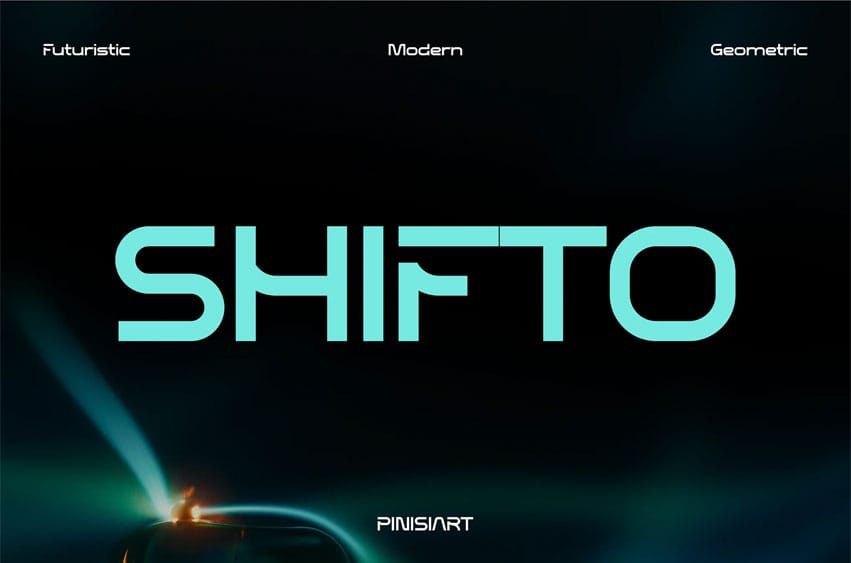
Shifto Font is a futuristic geometric display typeface built for modern branding and bold visual storytelling. With its sharp angular edges, smooth geometric proportions, and high-tech rhythm, SHIFTO projects a confident, forward-thinking vibe that makes it stand out in digital spaces. Its structure balances strong geometry with clean readability, making it ideal for projects that demand impactful headlines and contemporary aesthetics.
Perfect for branding, editorial layouts, posters, app UI, product packaging, and digital campaigns, SHIFTO adapts seamlessly across industries that thrive on innovation. Whether you’re designing a tech startup identity, a gaming interface, or a bold marketing poster, this typeface delivers an energetic, futuristic spirit that grabs attention and inspires progress.
Key Features :
- Futuristic & Modern: Sharp geometric forms with a sleek, forward-looking aesthetic.
- Versatile Design: Works beautifully for logos, posters, editorials, and UI design.
- High Readability: Clean proportions that balance style with clarity.
- Creative Impact: Instantly elevates branding with bold futuristic presence.